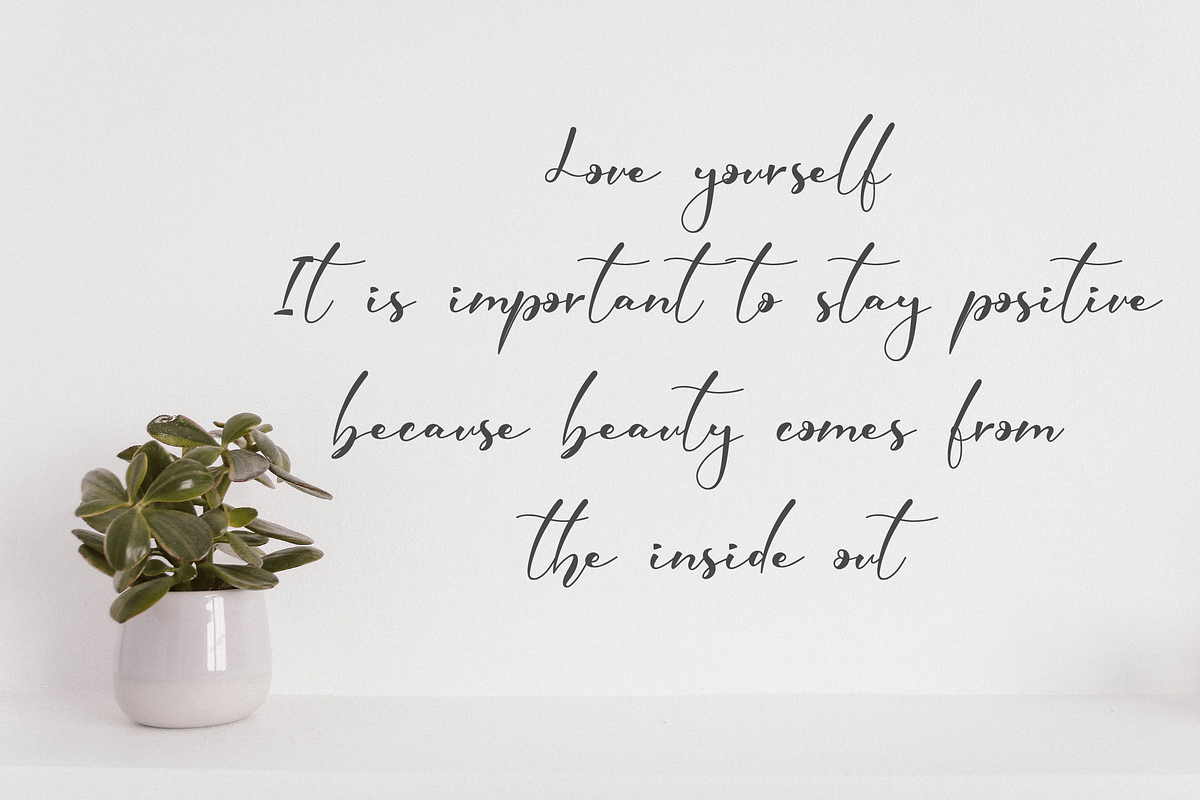
Elmira Script
Elmira is a beautiful script font with a fresh and contemporary twist. Get inspired by its unique charm!
Each Font Has:
Modern Calligraphy Font Beautiful Swash (Ending tail) Beautiful Titling (Beginning tail) Special Ligatures Multilingual Support